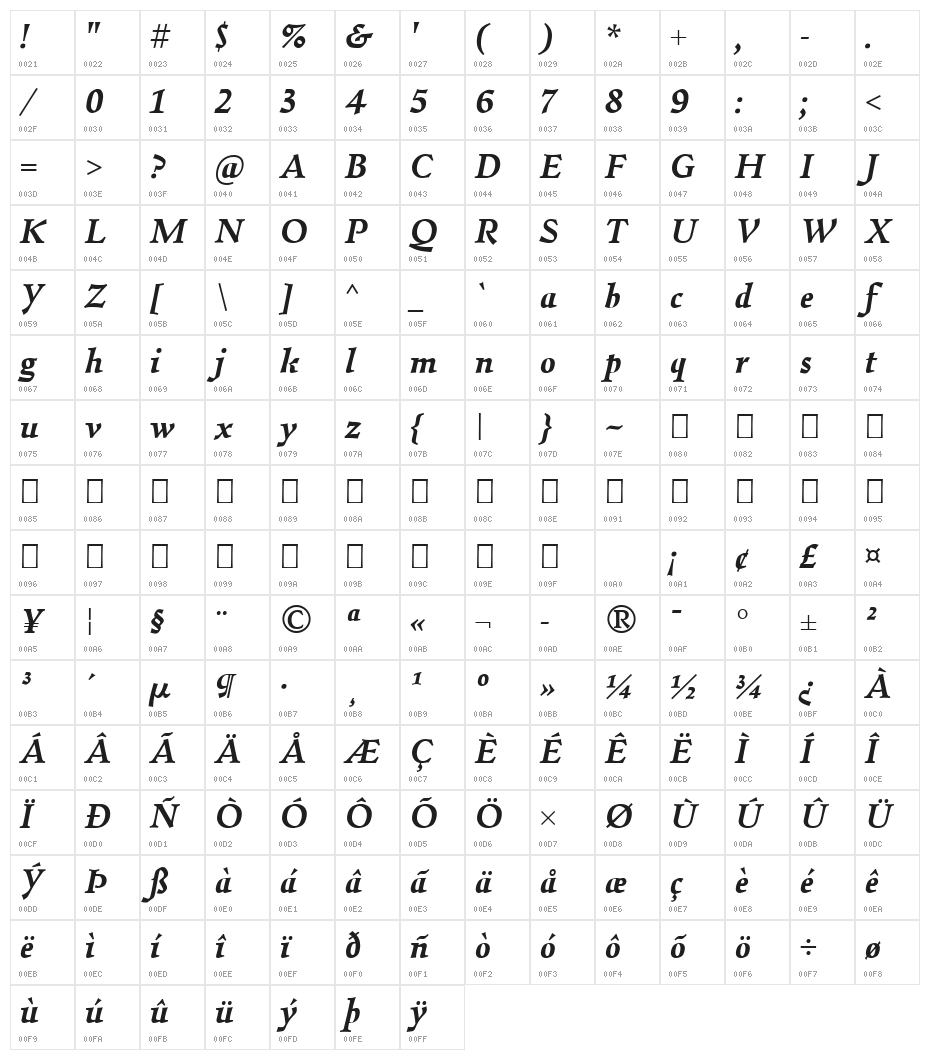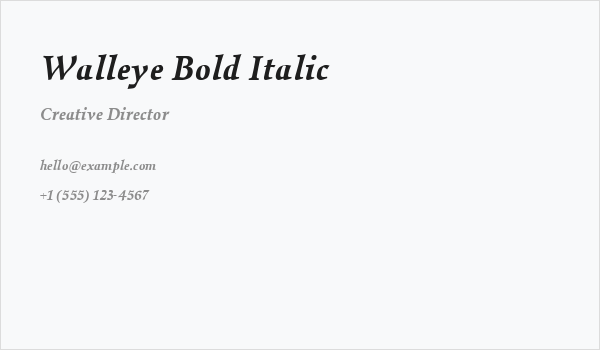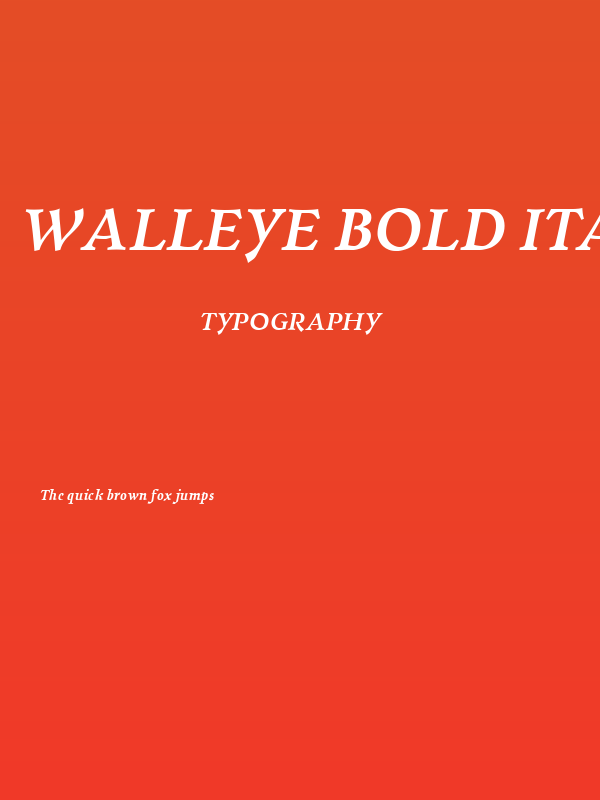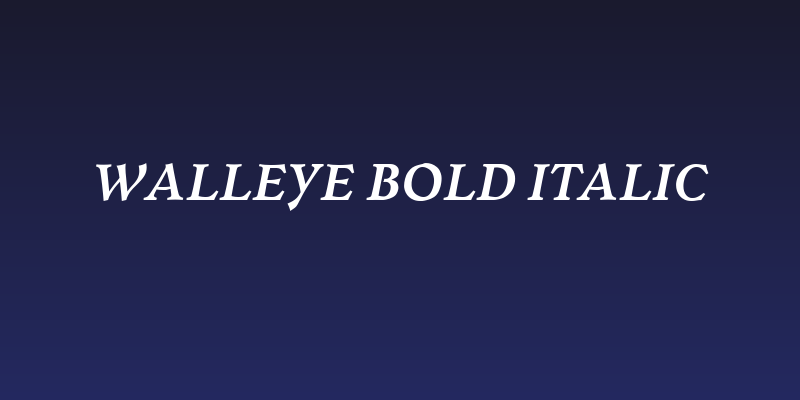
Walleye Bold Italic Font
Walleye Bold Italic Description
This font features a bold and italic style, characterized by its dynamic and slanted letterforms. The strokes are thick, providing a strong presence on the page, while the italic angle adds a sense of movement and elegance. The serifs are pronounced, giving it a classic touch, yet the overall boldness ensures modern readability. The characters are well-spaced, ensuring clarity and legibility even at smaller sizes. The numbers and special characters maintain the same bold and italic characteristics, ensuring consistency throughout the typeface.
| Proposed Projects | Ideal for headlines, branding, and editorial design where a strong, elegant presence is needed. |